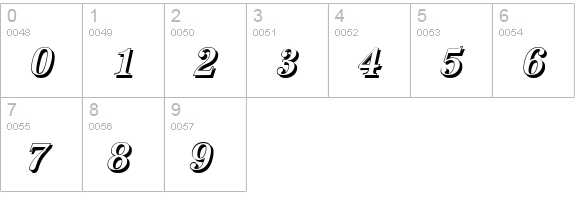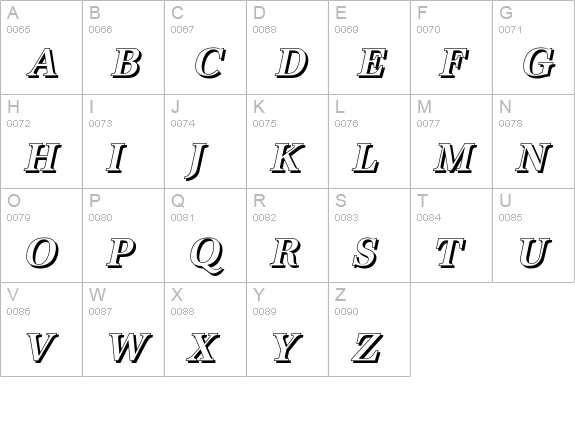
AntiquaSh-Cd-Medium-Italic is a balanced, medium-weight, italic variant in the AntiquaSh typeface family \xE2\x80\x94 well suited to sub-headlines, navigation, and balanced editorial work.
AntiquaSh-Cd-Medium-Italic font is a timeless and elegant typeface that exudes sophistication and charm. Its classic design and delicate italic styling make it perfect for adding a touch of refinement to any project. The medium weight strikes a balance between boldness and subtlety, making it versatile for various design applications. This font is not only aesthetically pleasing but also highly legible, ensuring that your message is conveyed with clarity and style. Whether you're designing a logo, a website, or a printed piece, AntiquaSh-Cd-Medium-Italic will elevate your work to the next level. The best part? AntiquaSh-Cd-Medium-Italic font is available for free download at FontsMarket.com. Now you can access this premium font without any cost, making it a valuable addition to your design toolkit. Don't miss out on the opportunity to enhance your projects with the timeless beauty of AntiquaSh-Cd-Medium-Italic font.